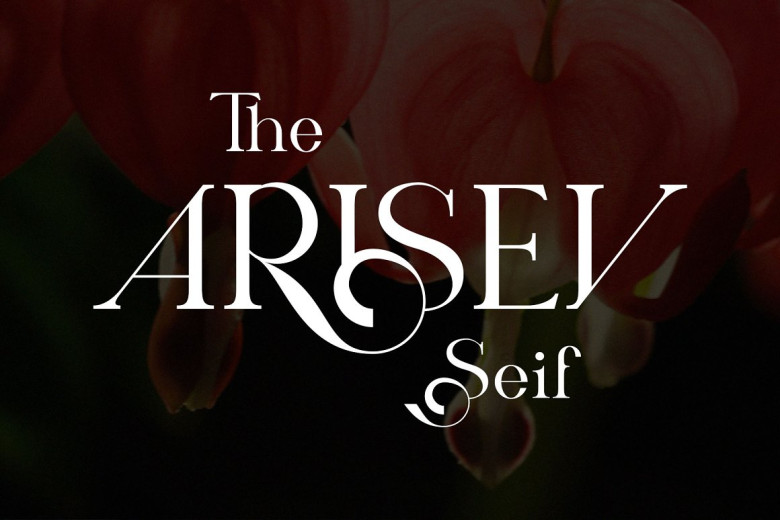
ARISEV Serif Font
ARISEV is an elegant and sophisticated serif typeface. Perfect for logos, magazines and social media posts; already matched and ready to be used! If you want a hint of sophisticated, stylish, classy contemporary chic style added to your designs then ARISEV was designed specifically with OpenType features in mind, featuring punctuation marks, ligatures, numbers as well as languages support!
ARISEV Unique Serif Font